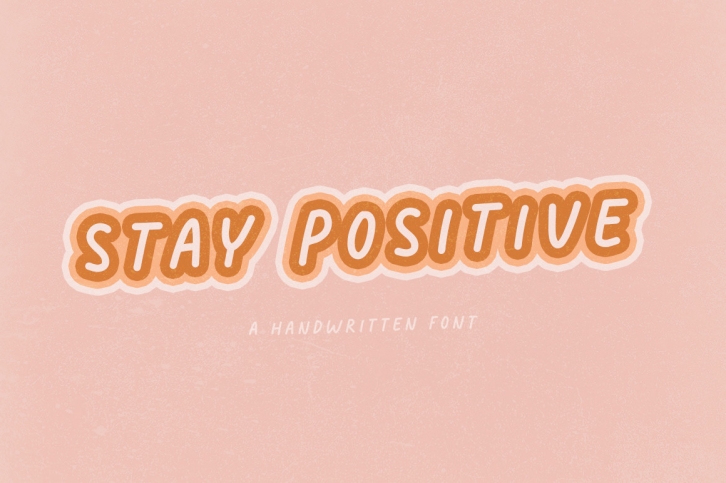
Stay Positive is a sweet and friendly handwritten font. Its natural and unique style makes it incredibly fitting to a large pool of designs. The only limit is your imagination!